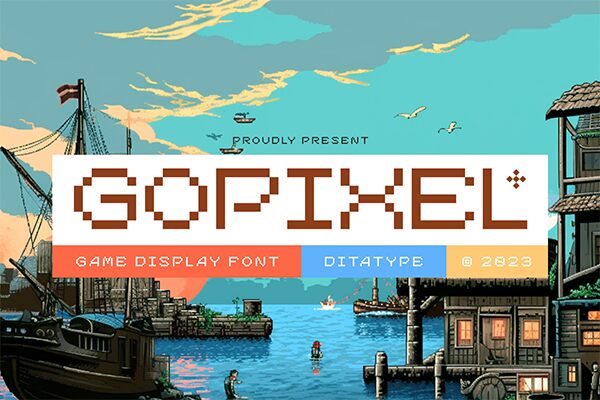
Looking for a font with an intriguing background, and a bold and pixelated style? Gopixel is the perfect solution, and it’s completely free! It comes with a variety of characters including uppercase letters, numbers, symbols, etc., so you can use it for T-shirt designs, greeting cards, packaging, logos, poster titles and headlines, social media posts, print projects, UX, UI, and web designs, and many others.
This pixelated font will add a modern touch to your project, and with its large character height you can use it for large display screens as well as personal branding projects. So why don’t you check Gopixel out, try it on different backgrounds, and let us know what your favorite project was using this font.